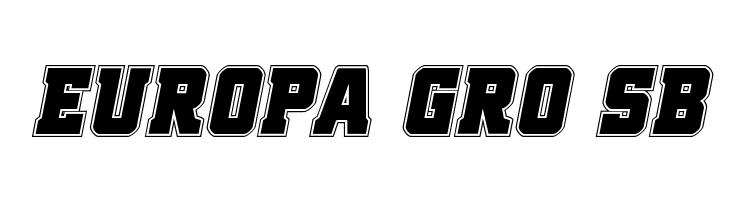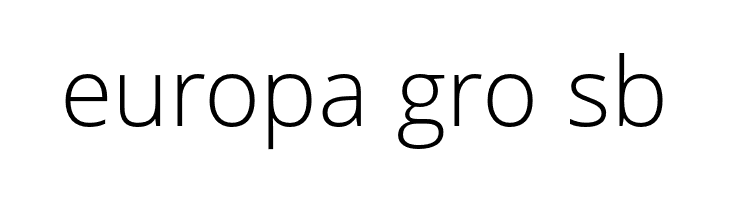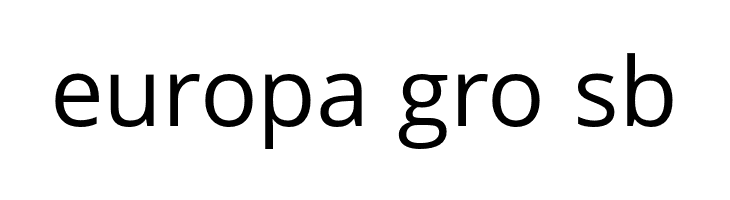
A bold, outlined font with a playful and energetic style.
A playful and bold font with irregular, dynamic letterforms.
A bold, geometric sans-serif font with a modern and professional look.
A modern, geometric sans-serif font with uniform strokes and clear characters.
A clean, modern sans-serif font with consistent stroke width and excellent readability.
Bold, italic font with a sporty, collegiate style and thick outlines.
A clean, modern sans-serif font with a light weight and balanced design.
A clean, modern sans-serif typeface with open, rounded letterforms and uniform strokes.
A modern, semi-bold sans-serif font with excellent readability and a clean design.